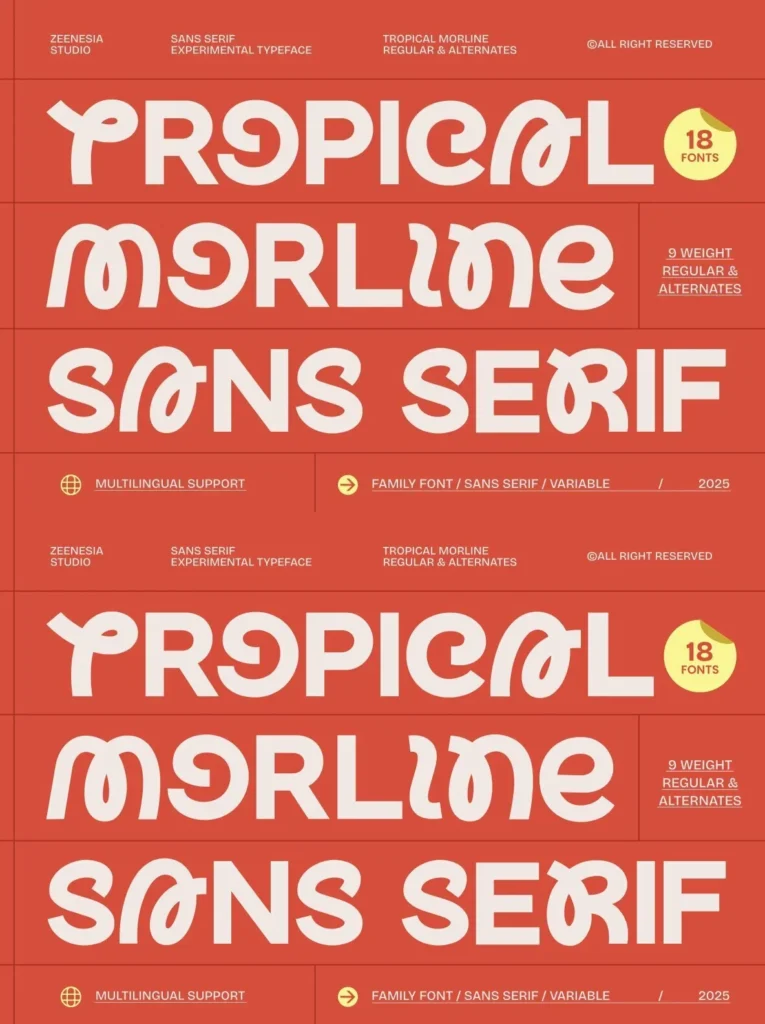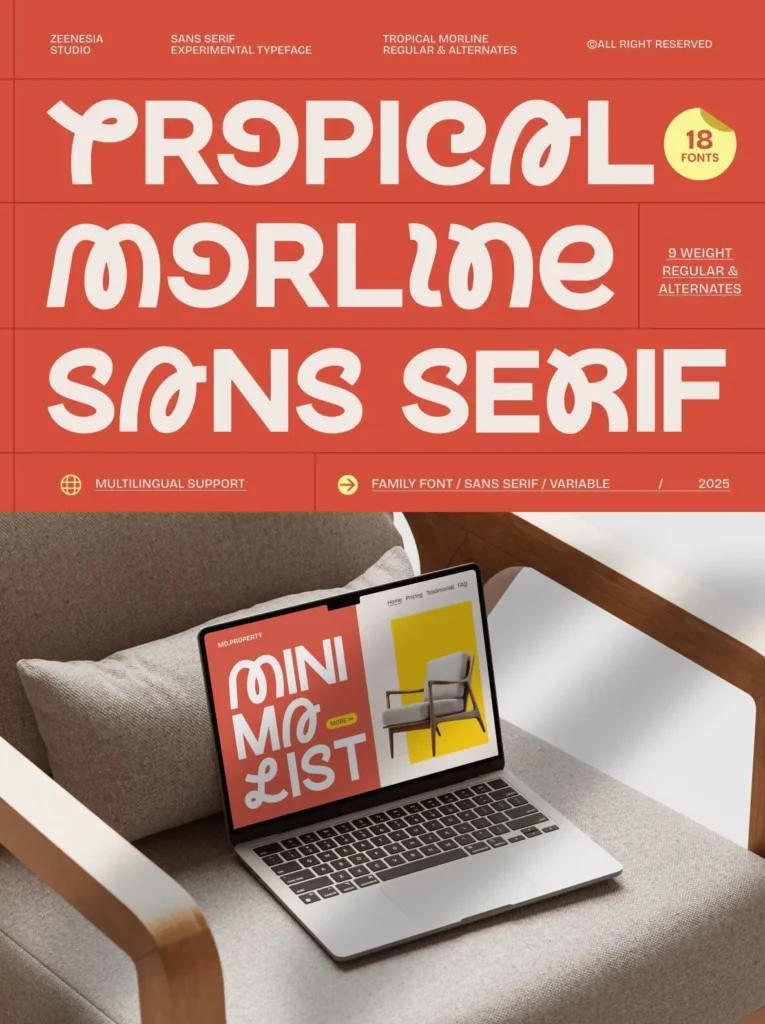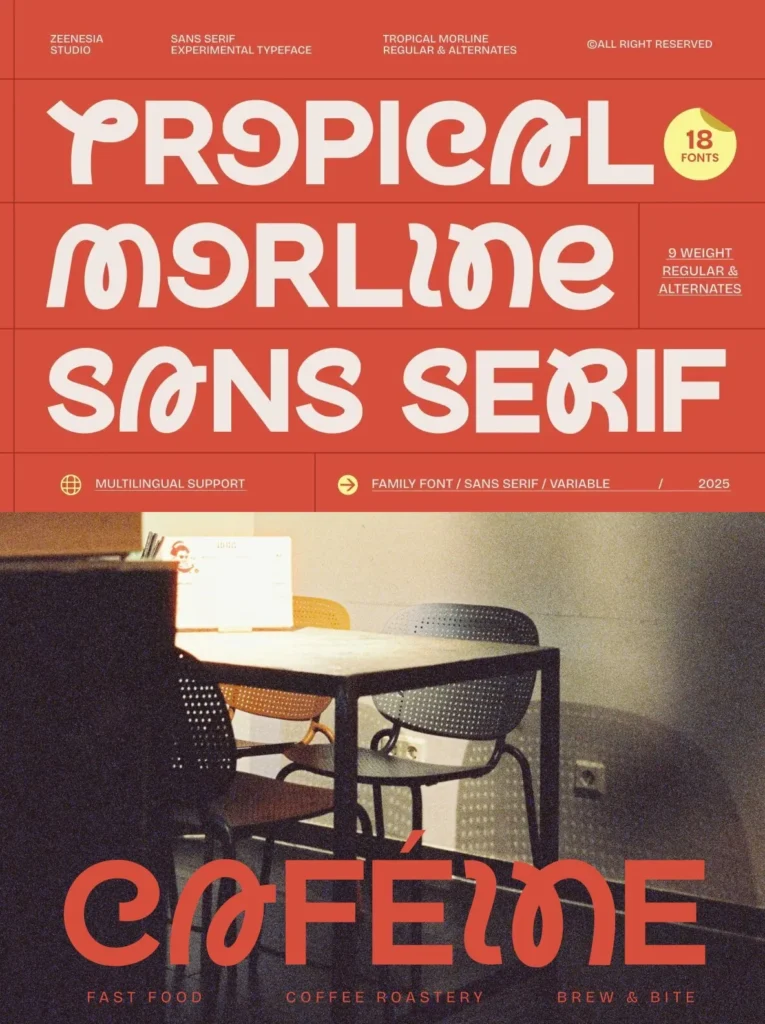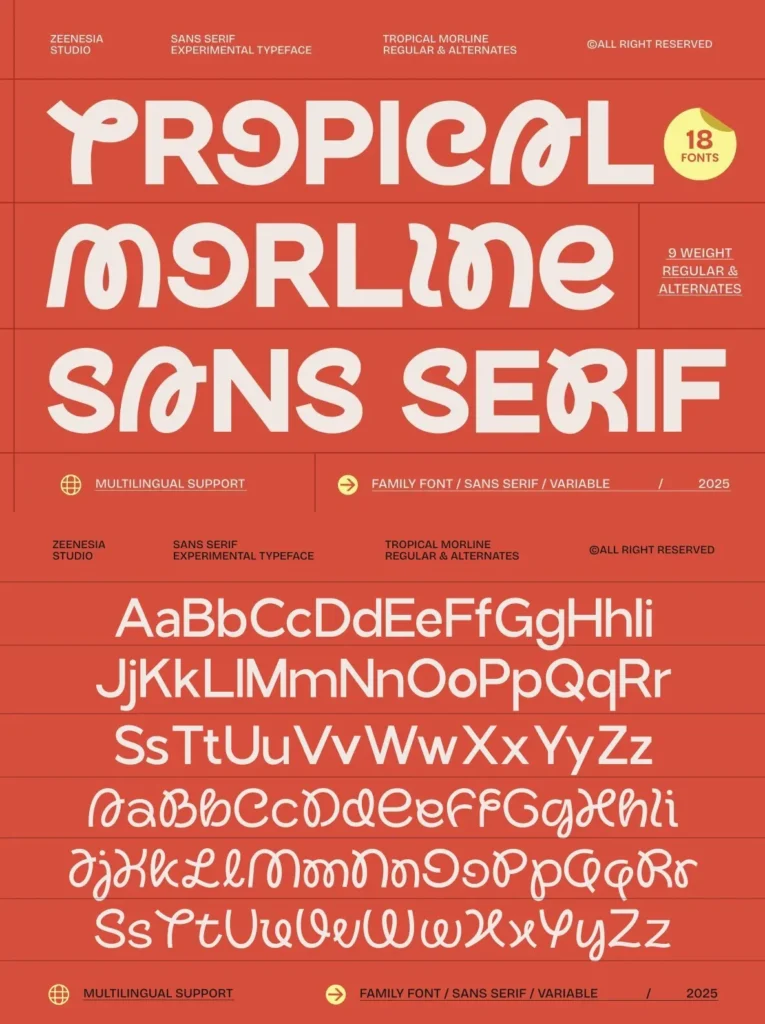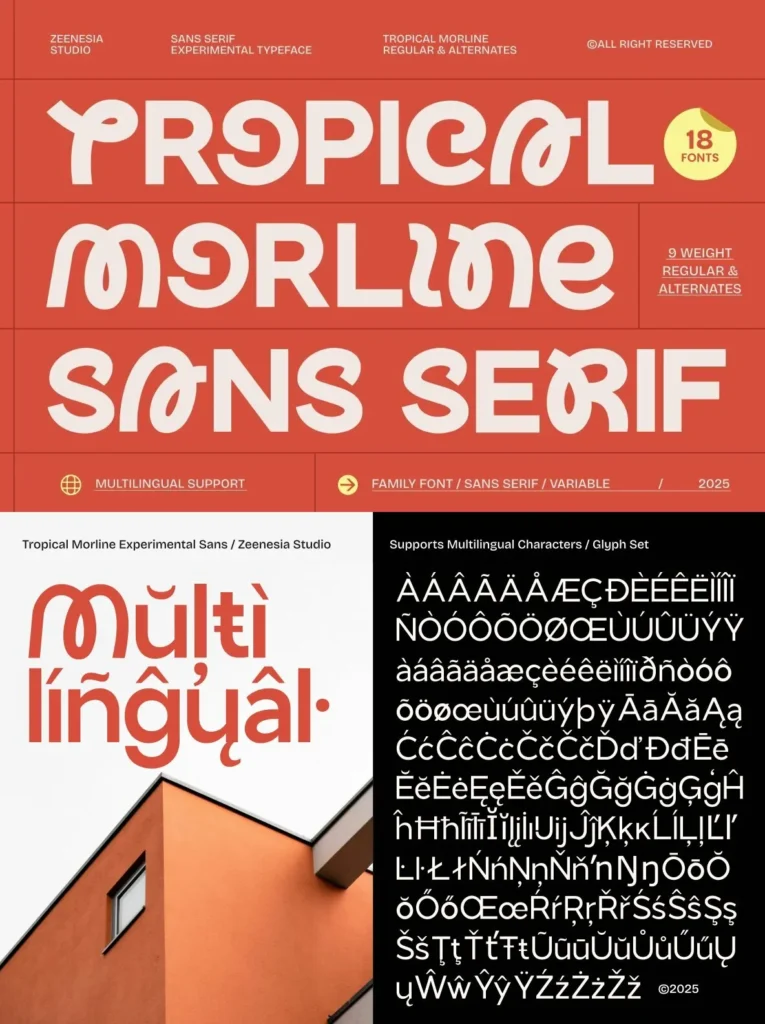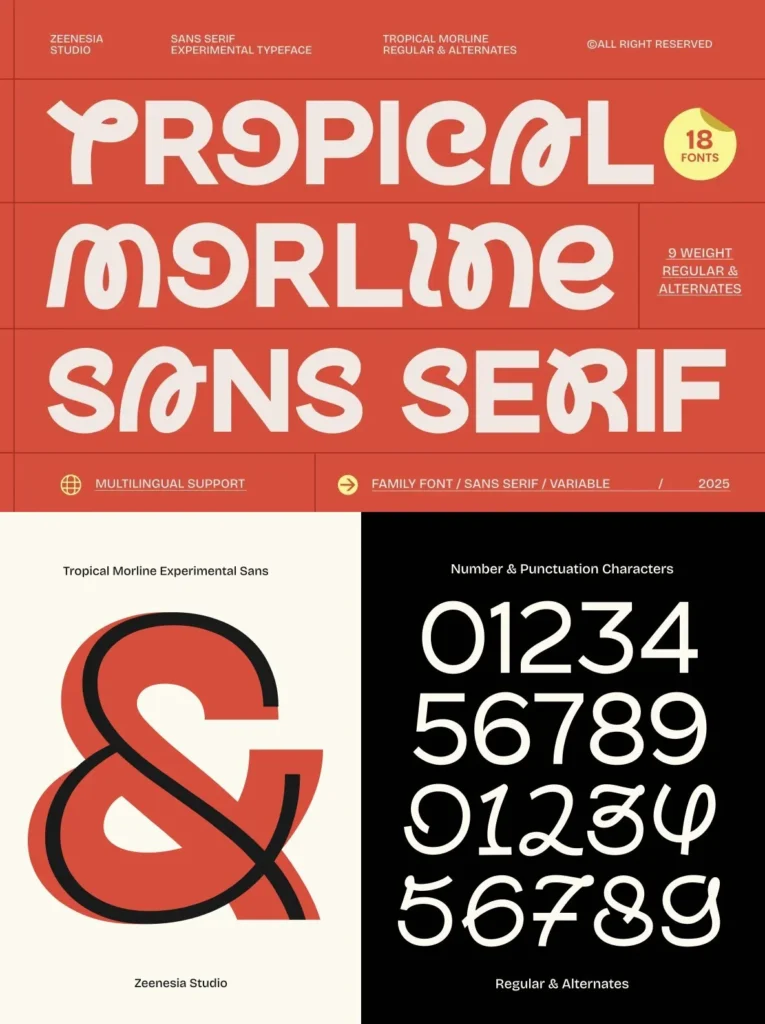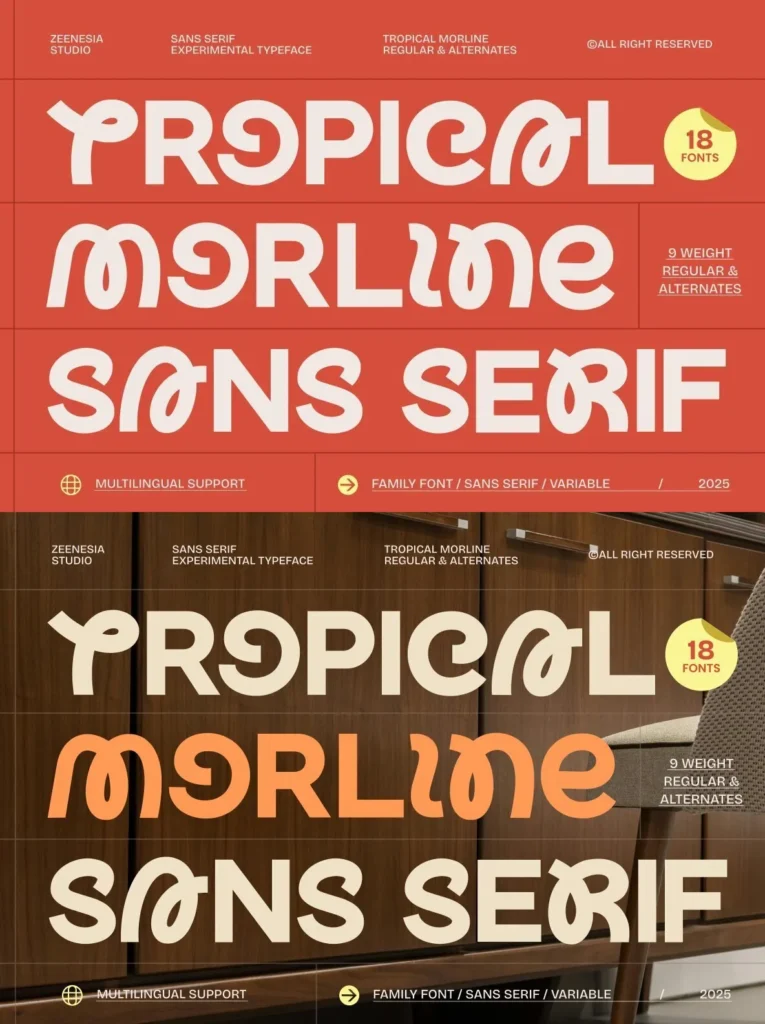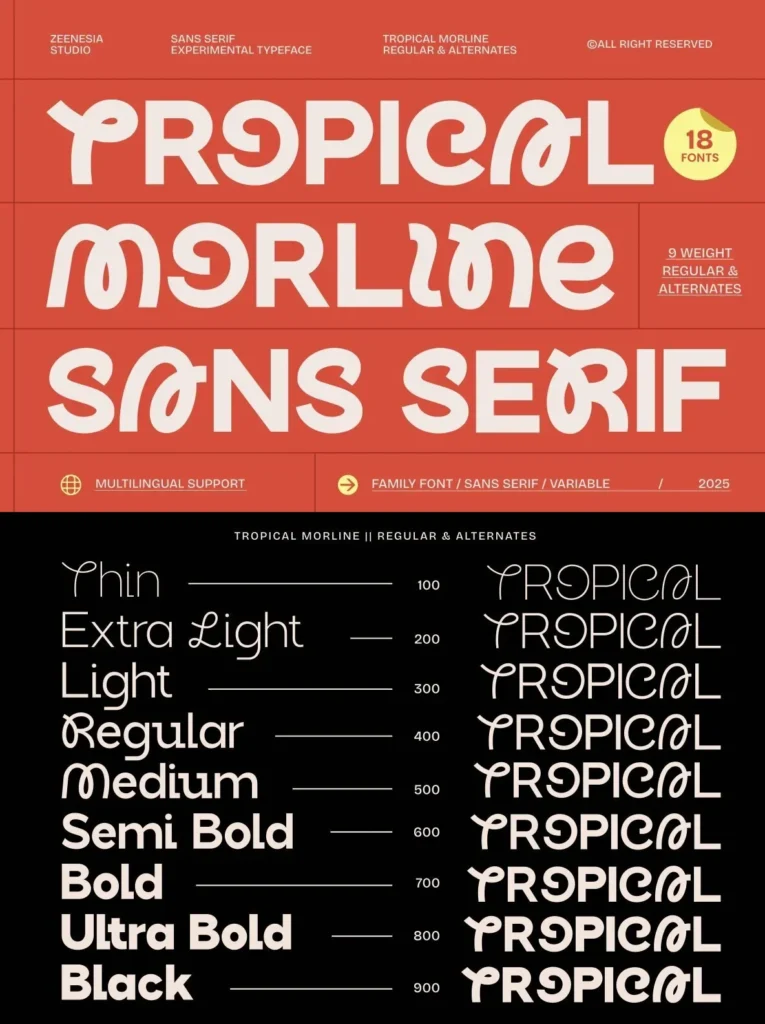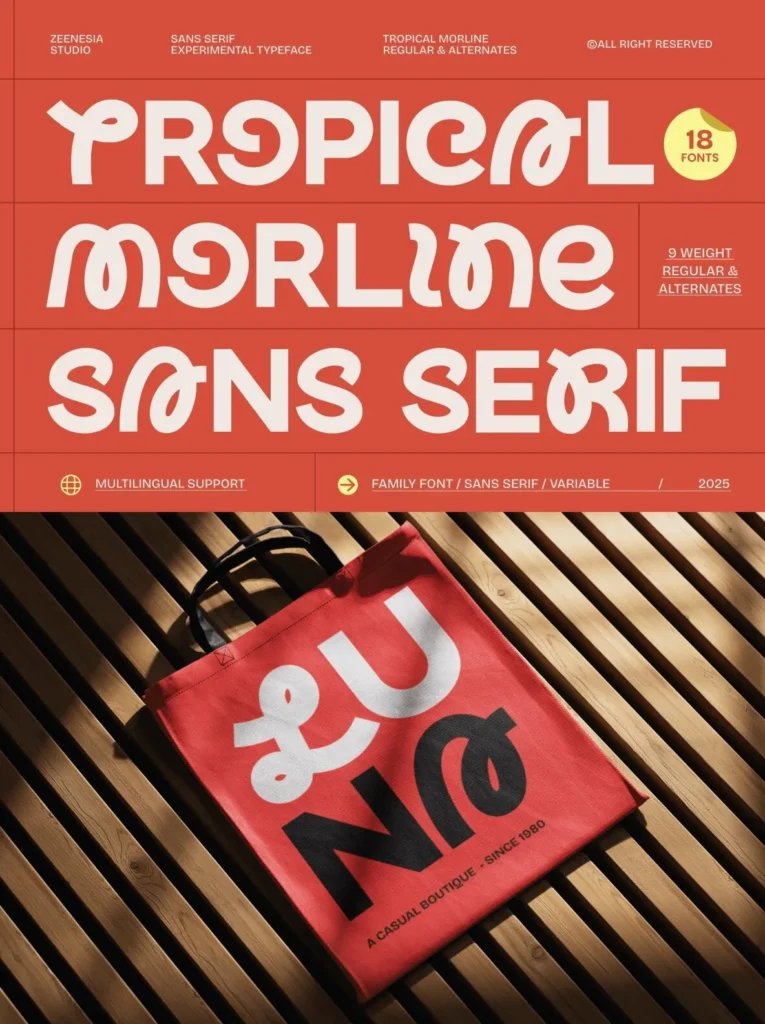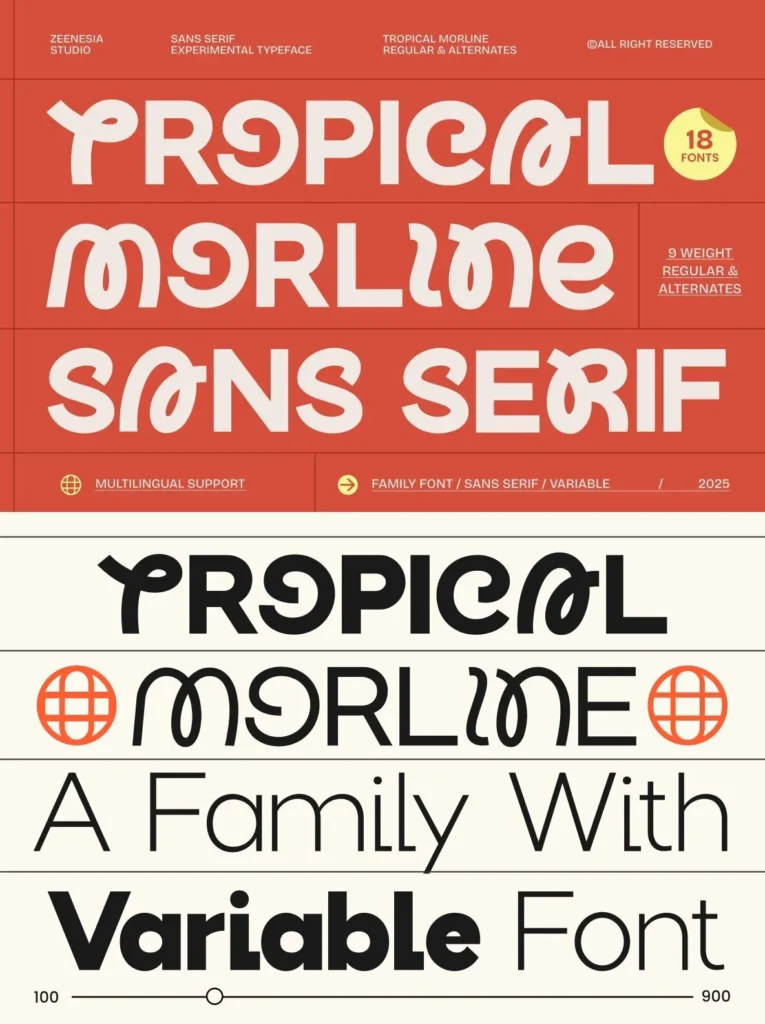
Tropical Morline: Expressive Sans Serif with Playful Energy
Tropical Morline is an experimental sans serif typeface that channels playful, tropical energy through expressive letterforms. Its design centers on soft curves, bold proportions, and a suite of distinctive alternates, giving this typeface a joyful personality suited for a range of visual environments. From branding to editorial layouts, Tropical Morline provides a vibrant presence while ensuring clarity and modern appeal.
With two primary styles—Regular and Alternate—across nine weights from Thin to Black, this typeface offers flexibility for both nuanced and statement-making typographic treatments. The inclusion of a variable font expands creative control, allowing smooth transitions between weights to meet the needs of dynamic, contemporary workflows. Each character is crafted to maintain strong readability while also introducing decorative flourishes. This balance supports striking headlines, engaging packaging, and sophisticated creative projects that benefit from warmth and originality.
Features:
Two styles: Regular and Alternate
Nine weights from Thin to Black
Variable font for seamless weight adjustment
Rich selection of alternates and ligatures
Carefully drawn letterforms for standout compositions
Multilingual support
Tropical Morline is well-suited for those who seek to add character and flexibility to their design toolkit, offering a decorative yet practical solution for contemporary typography.